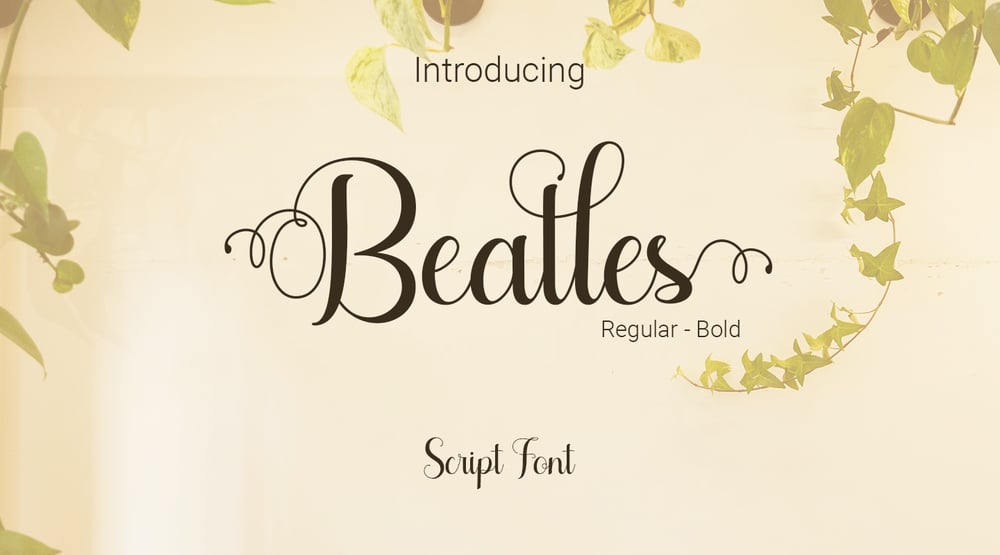
Beatles Font Family was designed by RoninDesign and published by Ronin Design. Beatles contains 2 styles and family package options. Beatles is an elegant and natural handwritten font style, with features ending and beginning alternate and some ligatures. Beatles have 2 font style, Regular style and Bold style, this font will look perfect for poster design, invitation card, advertisement and many more.